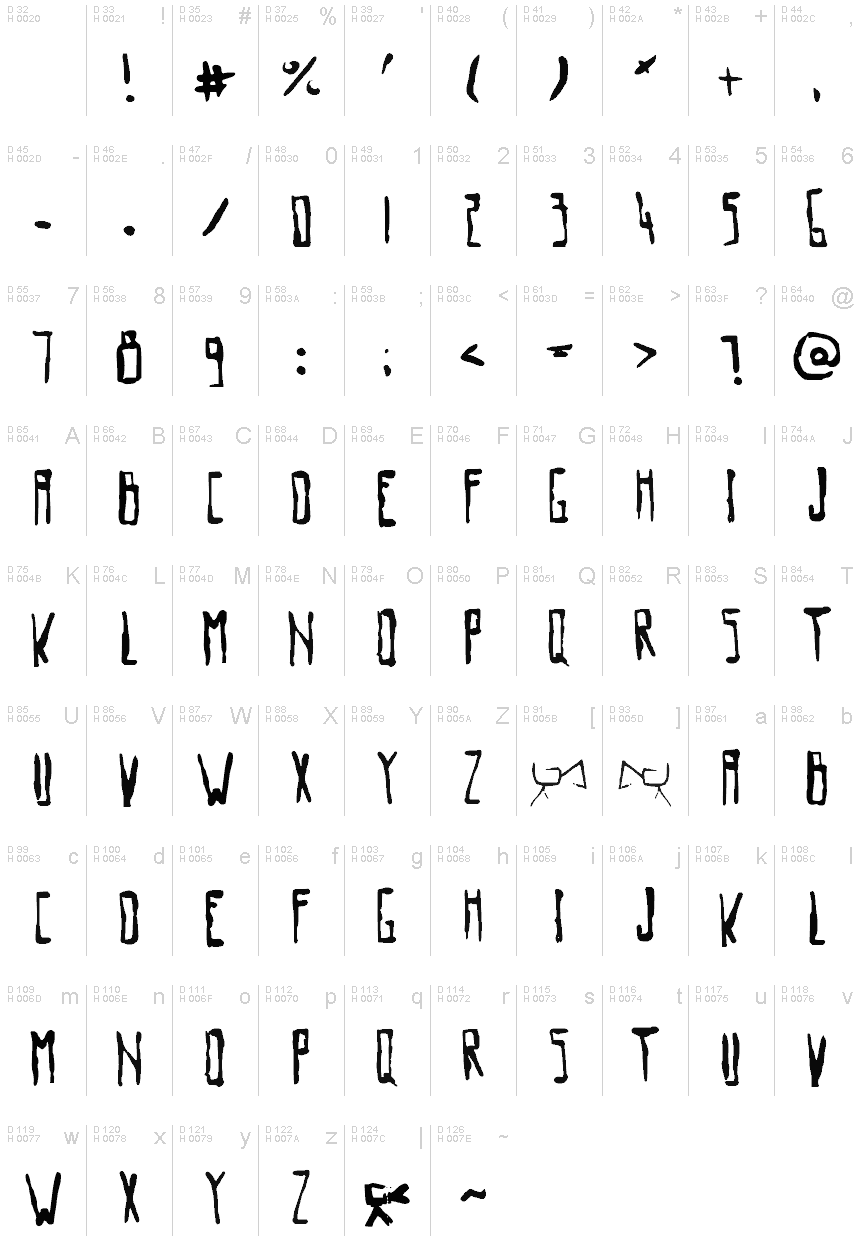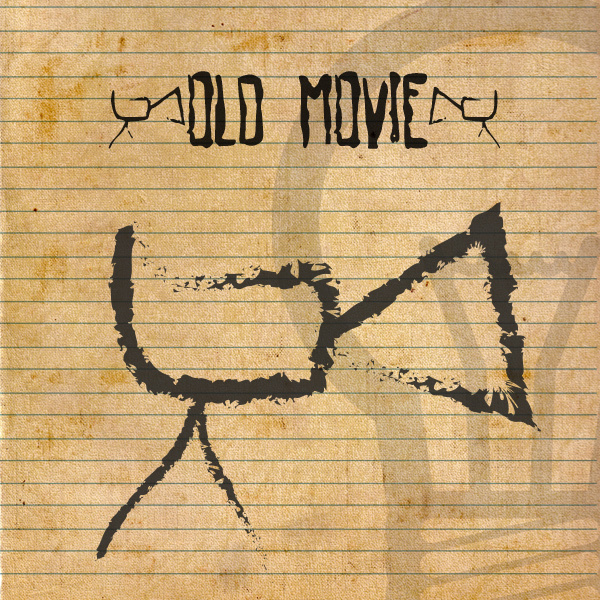
OldMovie
"Old Movie" is a striking display font designed by Leonard Posavec of LeoSupply.co. The eroded, condensed letterforms evoke a sense of vintage charm and gritty character. The irregular, hand-drawn quality gives the font a unique, expressive flair, making it an excellent choice for titles, headlines, and branding in a variety of design contexts.
This font's versatility shines through its ability to convey a nostalgic, cinematic atmosphere or a rugged, industrial aesthetic. Its bold, commanding presence ensures it stands out, making it a compelling option for book covers, album art, posters, and other applications where a bold, impactful typographic treatment is desired.